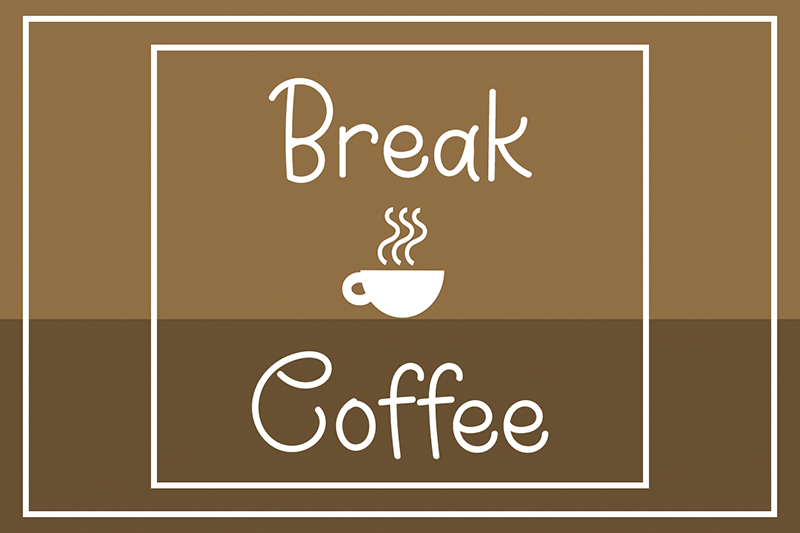
Break Coffee is a stylish and delicate handwritten font. It has a clean, thin and smooth vibe and it will be a hit for any design that you want to add it to! Attention : Break Coffee handwriting Font is prohibited to use this font for commercial purposes or for profit without the permission of the author/admin, without being known to use this font without permission, will be subject to sanctions 5x the specified price. This font is used only for demos (Demo license) If you want to use this font for commercial use please contact email: erikluluk0@gmail.com or click the link below: https://www.creativefabrica.com/product/break-coffee/ref/745146/ If you want to see more other fonts, please click:https://www.creativefabrica.com/designer/erik-studio/ref/745146/ Any donations are very appreciated. Paypal account for donation: https://paypal.me/erikstudio1 thanks. |